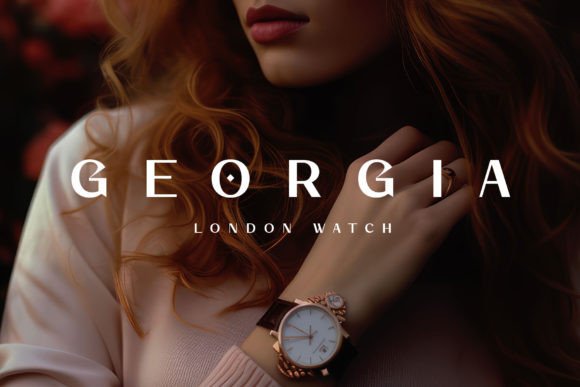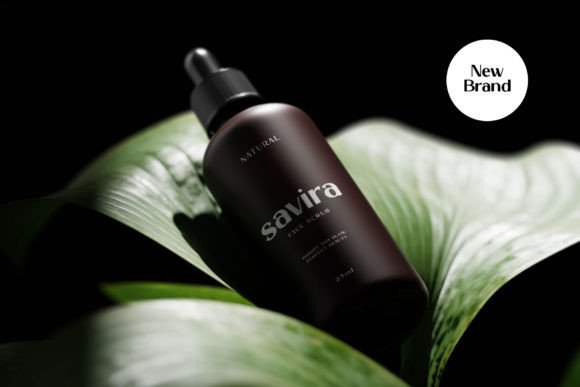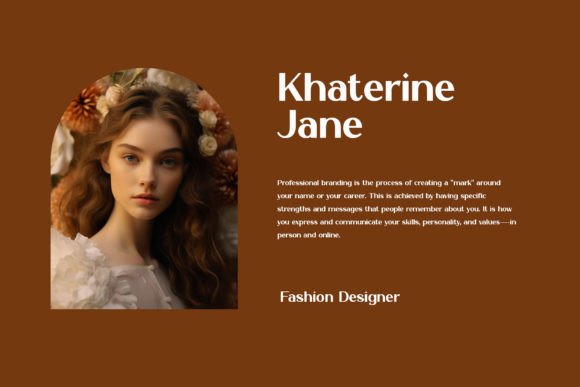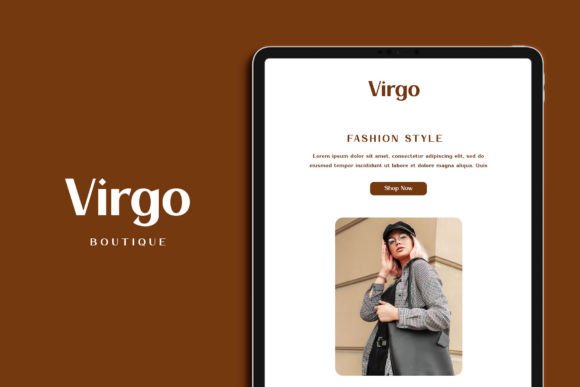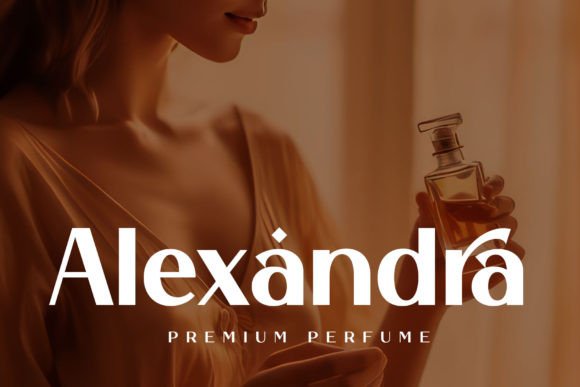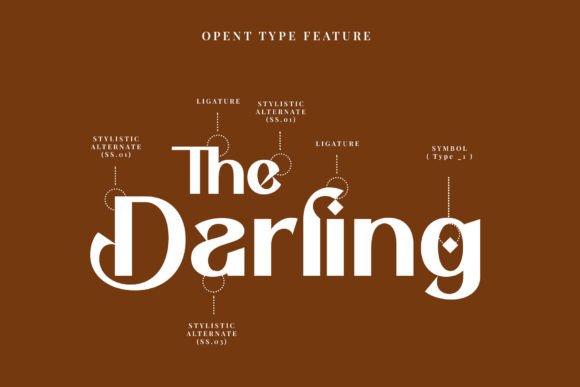
The Power of Typography: Elevating Your Designs with the Bainley Font
Have you ever been stuck on a design project, searching for the perfect font to bring your vision to life? The struggle is real – but what if I told you there’s a font that can effortlessly elevate your designs, adding a touch of modern sophistication and elegance? For designers, the Bainley Font is a game-changer, offering a versatile and refined look that’s perfect for branding, web design, and editorial use.
Bainley Font’s clean, minimalist lines and balanced proportions make it an ideal choice for creatives looking to add a touch of contemporary refinement to their projects. Whether you’re working on a high-end branding campaign or a sleek website, this font is sure to impress. Its value lies in its ability to convey sophistication and style, making it a valuable asset for any designer’s toolkit.
Bainley Font Key Features
- Font Size: Supports font sizes from 8 to 120 points, with optimal readability at 12-24 points.
- Resolution: Designed for high-resolution displays, suitable for use at 300 DPI or higher.
- Unique Characteristics: Features a unique blend of modern and vintage elements, with distinctive letterforms and flourishes.
- Language Support: Includes support for multiple languages, including English, Spanish, French, German, Italian, and more.
- Font Style: Available in Regular, Italic, Bold, and Bold Italic styles, offering versatility for various design applications.
Bainley Font Review
I recently had the chance to work with the Bainley font, and I must say it’s an interesting combination of modern and classic elements. ✨ Here are a few things that stood out to me:
- Unique combination of geometric shapes and elegant lines, giving it a distinctive feel.
- The font’s versatility makes it suitable for a wide range of applications, from body text to headings.
- The font’s x-height is well-proportioned, making it easy to read.
However, there are a few limitations I’d like to point out: ⚠️
- The font may be too ornate for some projects, potentially overwhelming the content.
- The italic styles could be improved for better readability.
- The font’s condensed versions may not be as well-suited for digital applications, where screen real estate is limited.
Overall, I think Bainley is a solid choice for designers looking for a font with a bit of flair. While it may not be perfect, it’s definitely worth considering for the right project. With a bit of careful selection and styling, Bainley can add a touch of sophistication to your designs.
The Bainley font is ideal for creating elegant and sophisticated designs. Common use cases include:
– Luxury branding and marketing materials
– High-end packaging and labels
– Elegant typography in digital design
Tips for Getting the Most Out of the Bainley Font
To get the most out of the Bainley font, follow these tips:
– Use it in conjunction with high-quality images and graphics
– Experiment with different font sizes and styles to create visual interest
– Pair it with other elegant fonts to create a cohesive design
Open Sans is a highly readable sans-serif font that works well in a variety of contexts. It’s clean, friendly, and highly legible, making it perfect for body text, titles, and headings. Open Sans is similar to Bainley Font in its clean and approachable aesthetic, but it has a more rounded feel and is highly optimized for readability.